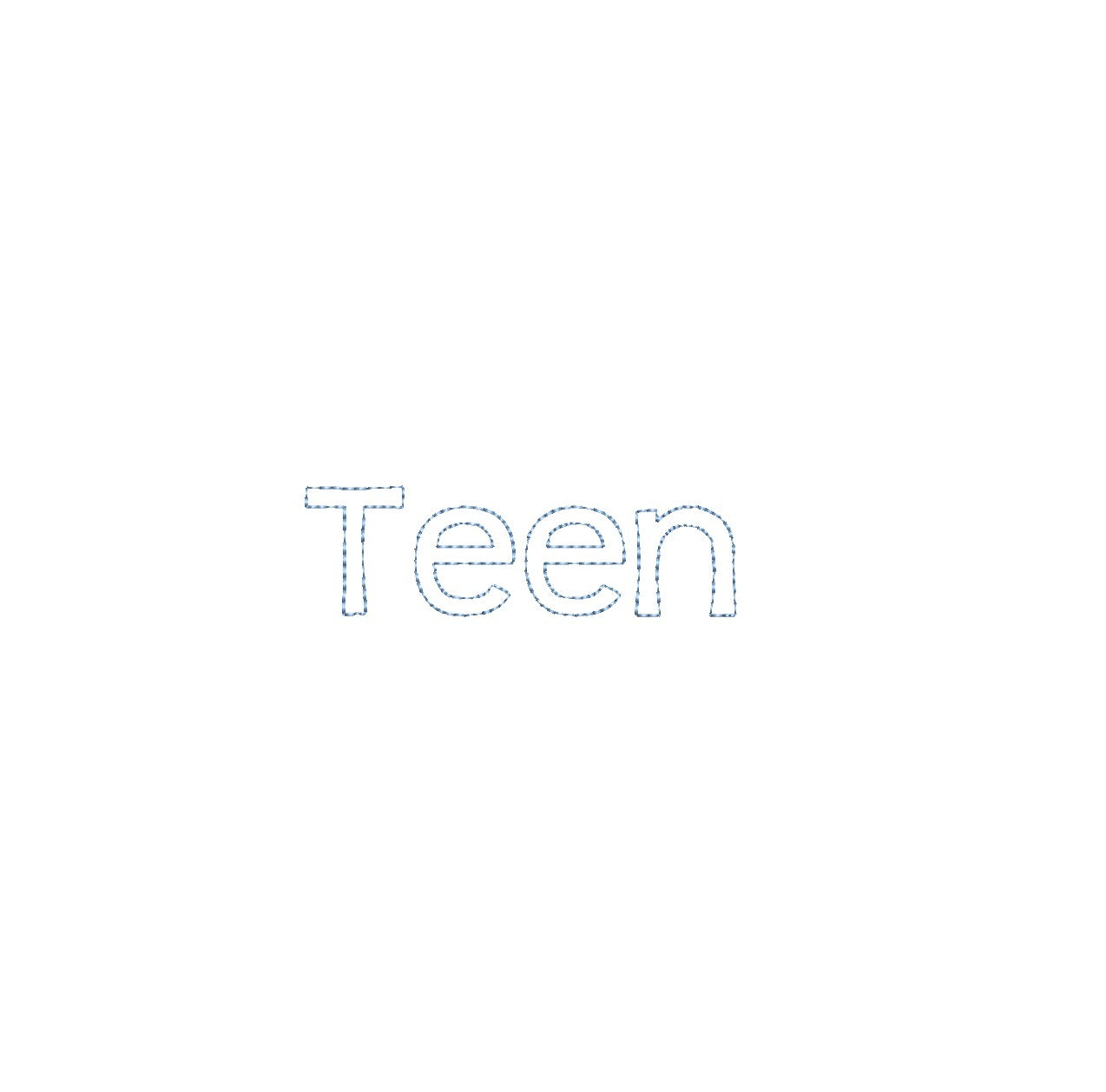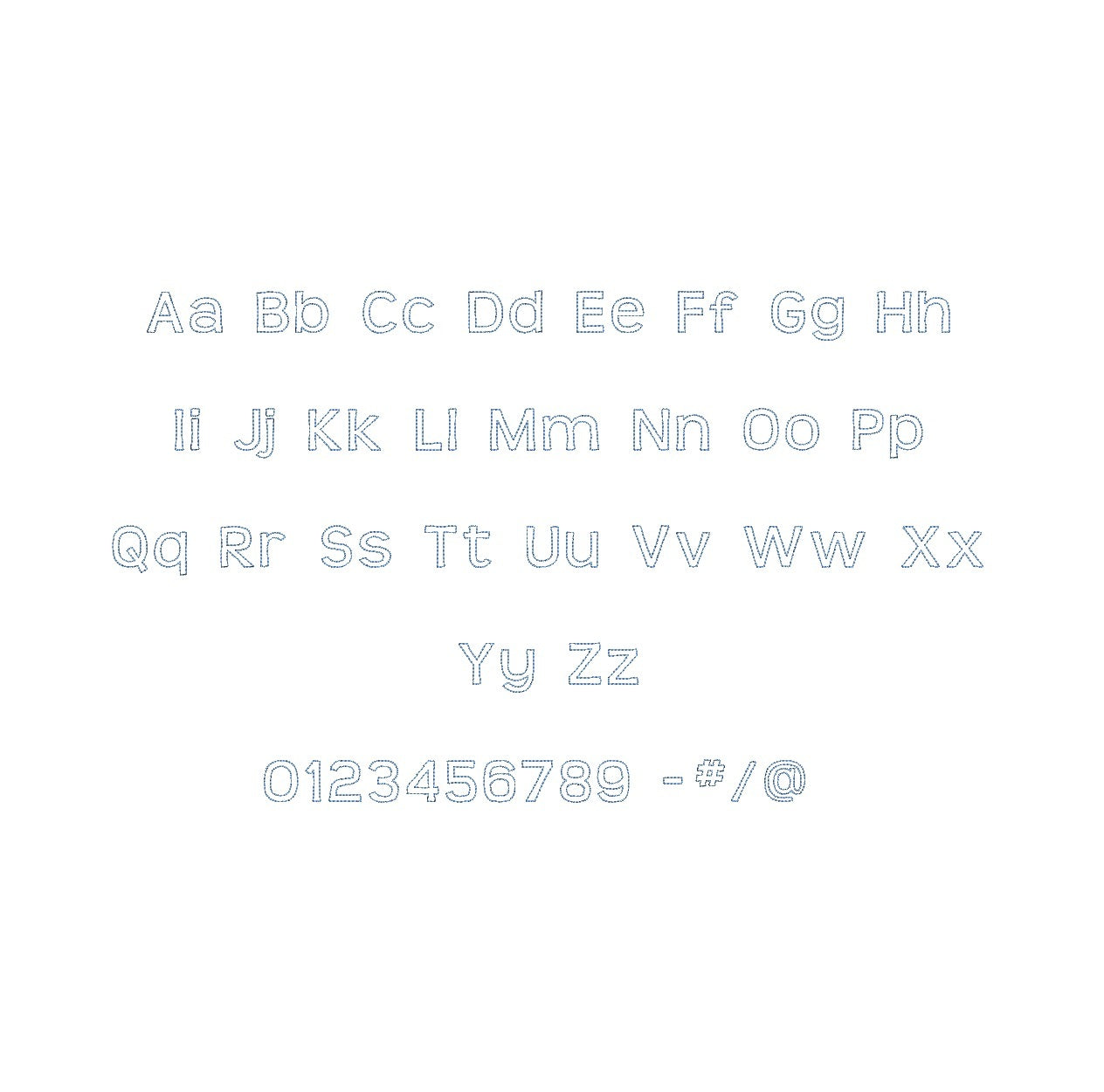
Elevate your embroidery with the Teen Bean Stitch Outline ESA font, compatible with Wilcom Studio e4.5.6 and Hatch 3 versions and up. This font effortlessly blends youthful charm and precision, infusing your designs with a unique aesthetic perfect for trendy monograms and embellishments. Experience seamless compatibility for outstanding results and unleash a new level of stitching finesse. Transform your creations into embroidery masterpieces that resonate with the spirit of modernity. Elevate your projects with the Teen Bean Stitch Outline ESA font and make your embroidery truly dynamic and unforgettable.